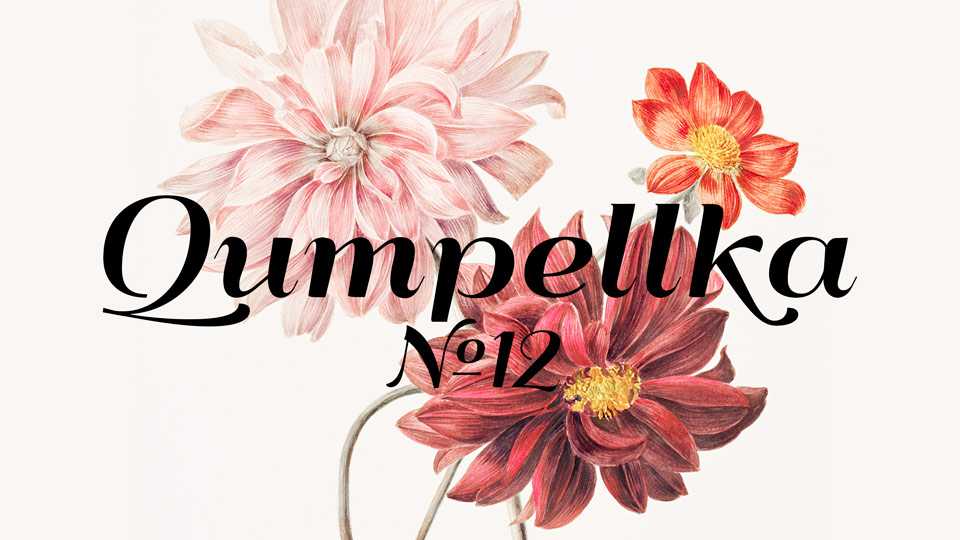
Download Qumpellka No12 font, a fancy script typeface with elegant and charming look. Qumpellka is perfect for logos, branding, weddings, fashion, apparel and media and other beautiful projects.
Designer: Grzegorz Luk